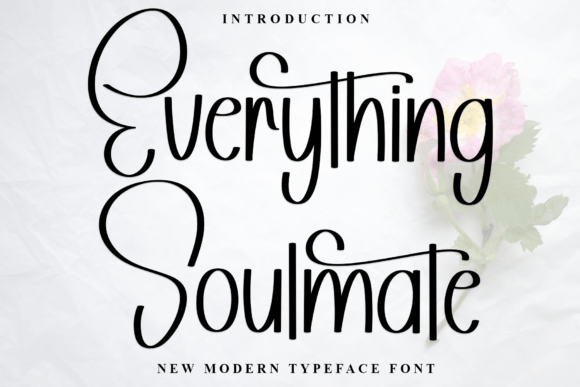
Enter Everything Soulmate Font, a stylish and elegant font that exudes warmth and sophistication. With its fluid strokes and natural flow, this font is perfect for adding a personal touch to invitations, branding, or social media. Whether you’re a seasoned designer or just starting out, Everything Soulmate Font is a valuable addition to your toolkit, offering a unique and captivating look that’s sure to set your designs apart.
Everything Soulmate Font Key Features
- Unique Characteristics: The font features a unique blend of modern and elegant script elements, making it perfect for romantic and creative projects.
Review of Everything Soulmate Font
Overall, I’d say the Everything Soulmate Font is a nice, gentle font. ✨ It has a soft, handwritten feel that’s perfect for adding a touch of warmth to your designs. The subtle imperfections and variations in letterforms make it feel more organic and human.
One thing I like about the font is its flexibility. ✨ It works well for both display and body text, and can be easily used in a variety of contexts, from headings to captions. The font also includes a range of weights and styles, which makes it easy to customize to fit your design needs.
Here are some of the font’s key features:
- Soft, handwritten feel
- Subtle imperfections and variations in letterforms
- Flexibility for display and body text
- Range of weights and styles
⚠️ One potential limitation of the Everything Soulmate Font is its readability at smaller sizes. The letterforms can be a bit messy and hard to decipher when scaled down, which may make it less suitable for small text or fine print.
Overall, I think the Everything Soulmate Font is a nice addition to any designer’s toolkit. It’s perfect for projects that require a touch of warmth and personality, and its flexibility makes it easy to use in a variety of contexts.
Getting the Most Out of the Everything Soulmate Font
For optimal results, use the Everything Soulmate Font in conjunction with bold or italic text to add emphasis and create visual interest.
The Everything Soulmate Font is ideal for:
- Love-themed social media graphics
- Valentine’s Day and anniversary cards